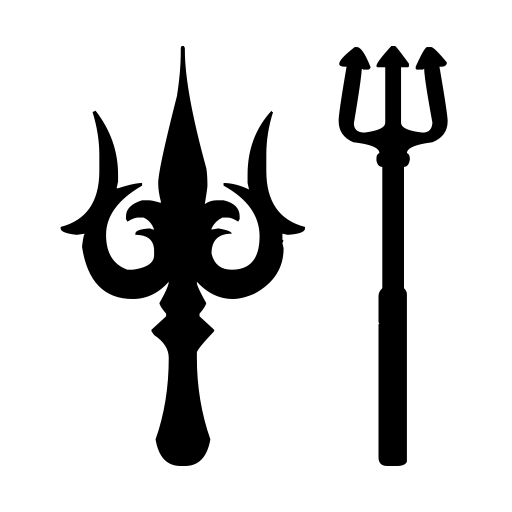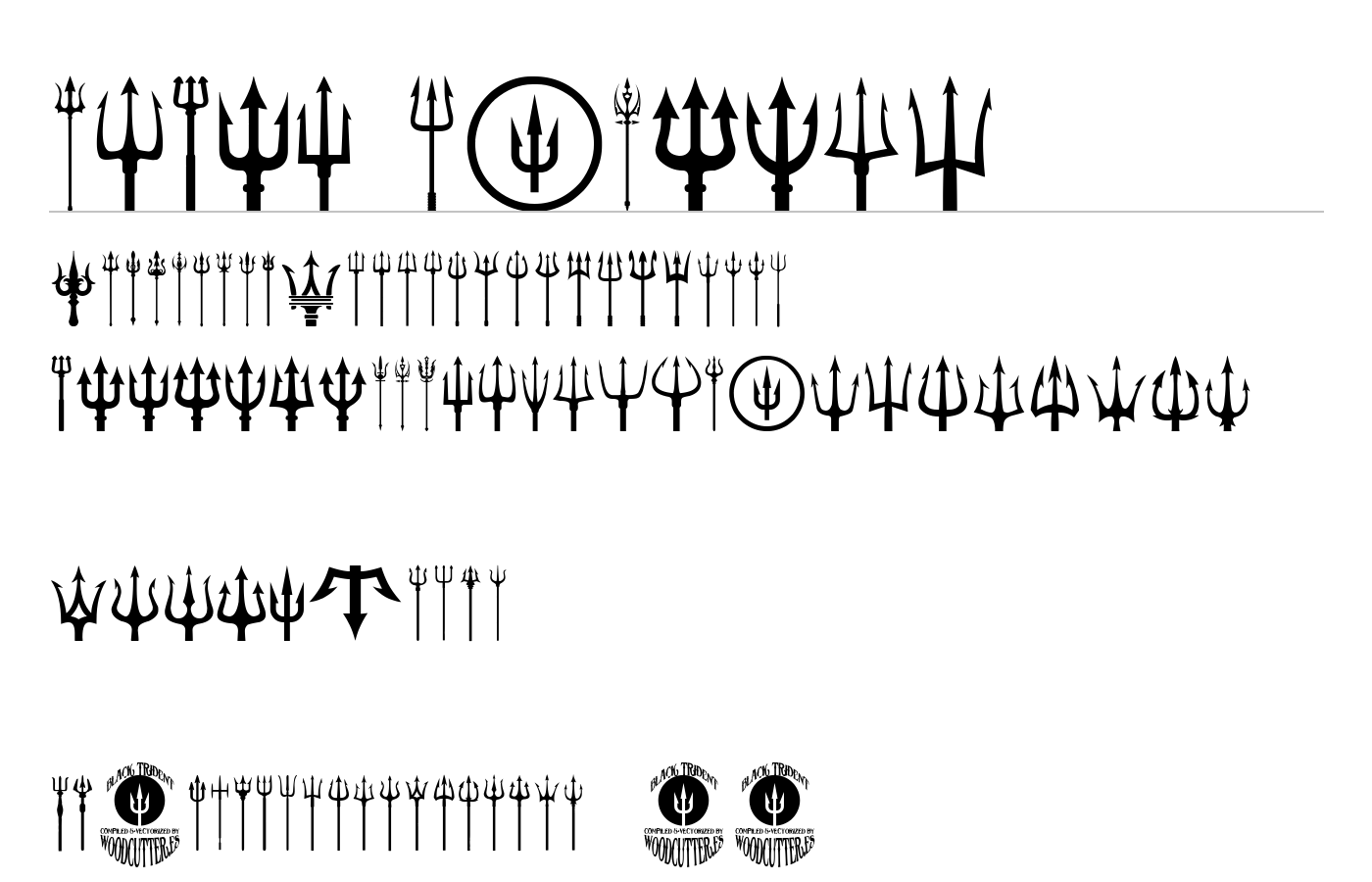
Black Trident is a decorative symbol font featuring a wide variety of intricate trident designs with strong, bold lines and sharp arrow-like points. Its detailed and varied forms evoke a powerful, mythic aesthetic perfect for projects needing a dramatic, maritime, or fantasy touch. This font works best in logos, posters, or themed branding where distinctive, eye-catching icons are needed rather than traditional text.
Black Trident Font
About Black Trident Font
| Font family | Black Trident Font |